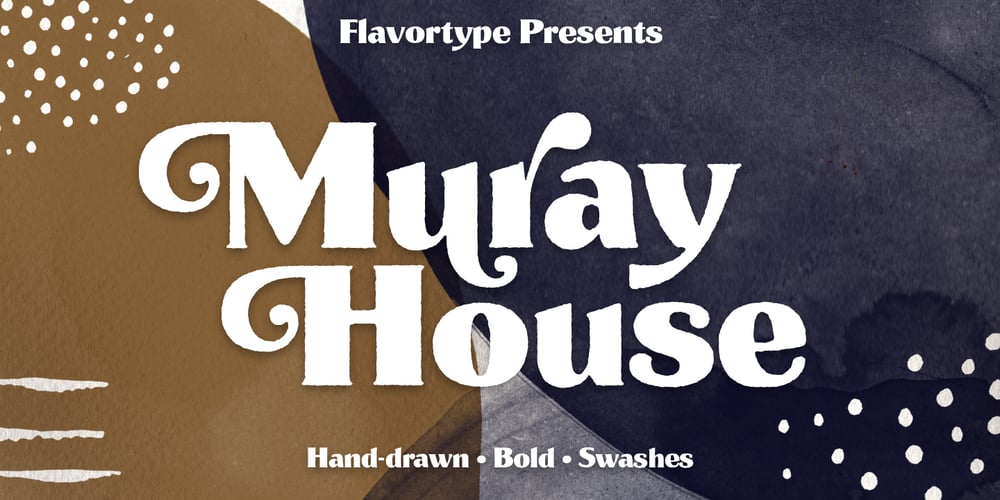
Muray House
Muray House font
Muray House Font Family was designed by Ilham Herry, Adam Fathoni Haris and published by Flavortype. Muray House contains 1 styles and family package options. Muray House is a bold serif font with a rough, balanced look, with beautiful curves and alternate characters. A style that we choose was the natural look hand made, Muray House ha a unique identity. Muray House also comes with alternative characters that are carefully created for adding a minimalist decor of the letters. Stylistic alternates allows versatile design options and works perfectly for Headlines, Posters, Logos Packaging, Branding, T-shirts, Greetings, Presentations and much more.